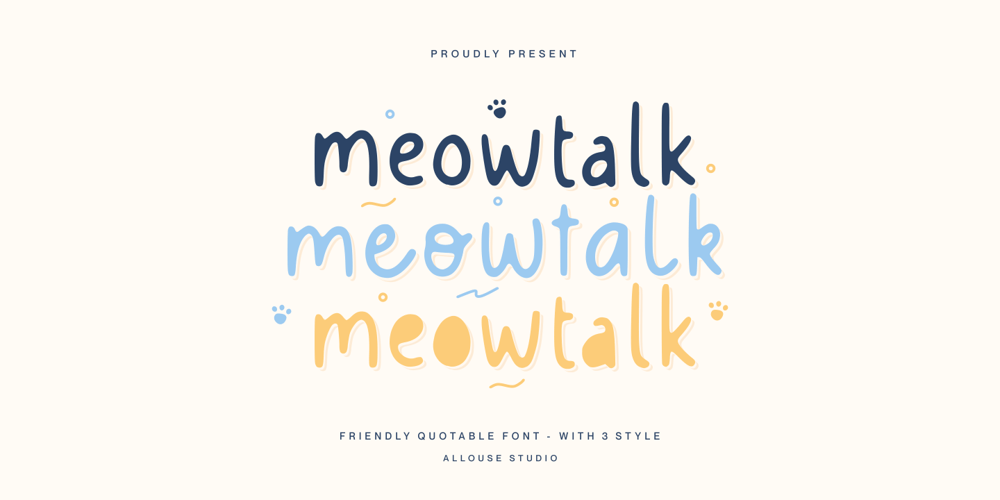
Meowtalk
Meowtalk font
Meowtalk Font Family was designed by Fachrizal Yusuf and published by Allouse Studio. Meowtalk contains 3 styles and family package options. Proudly Presenting, Meowtalk a Friendly Quotable Font with 3 styles.Meowtalk is perfect for any titles, logo, product packaging, branding project, megazine, social media, wedding, or just used to express words above the background.Meowtalk also come with Multi-Lingual Support.Enjoy the font, feel free to comment or feedback, send me PM or email. Thank You!